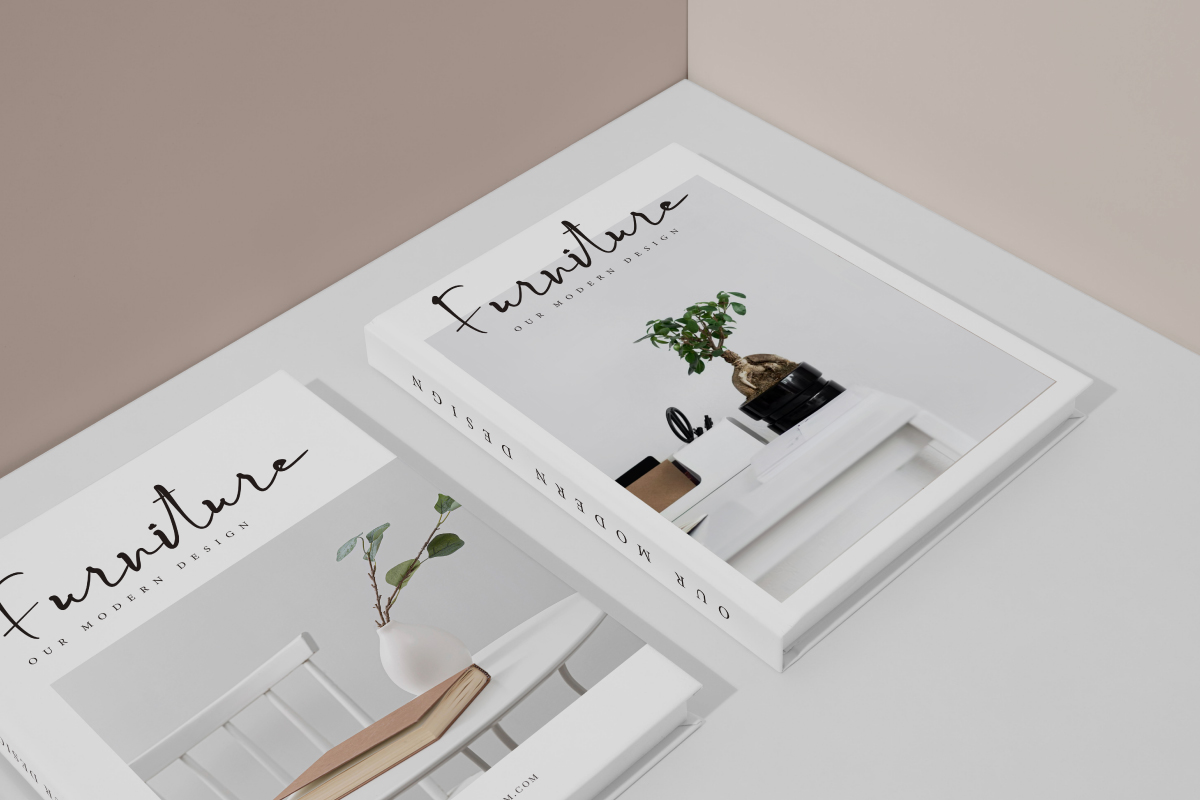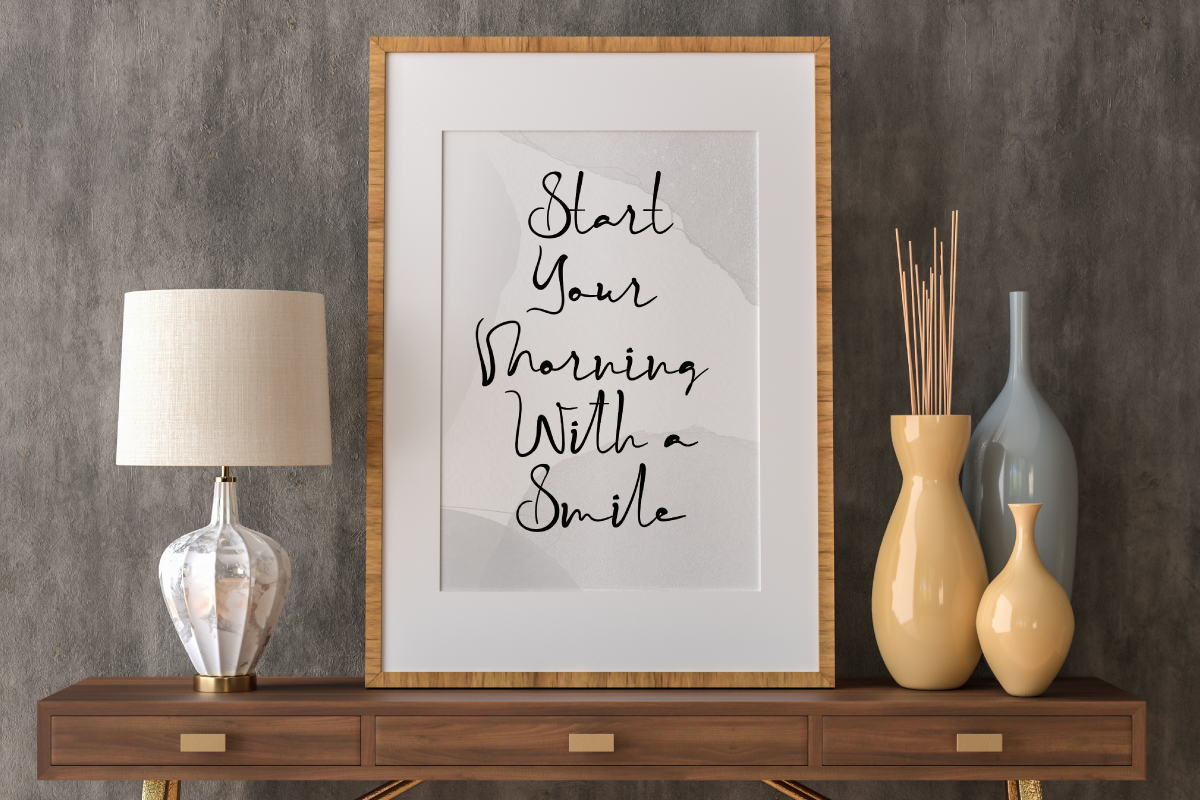
Stop Signal Script Font is a handwriting script font with ink drop look, created by EdricStudio. This type of typography will be suitable for many industries, such as café, cosmetic, fashion brand, furniture, handicrafts, homeware, restaurant, spa, and much more. It looks like a beautiful ink scribble written by an expert.
Stop Signal Font comes with a full set of Uppercase and Lowercase Basic Characters, Number, large range of Punctuation and Symbol. Also many pairs of Ligatures which make this font flow perfectly and more bound. It has a stunning characters set, perfectly managed with well spaced and kerning. Stop Signal Font will be great for any projects (with extended license) including : brand logo, labels, magazine catalog, menu, packaging design, quotes, signage, stationery, title, website, and more.